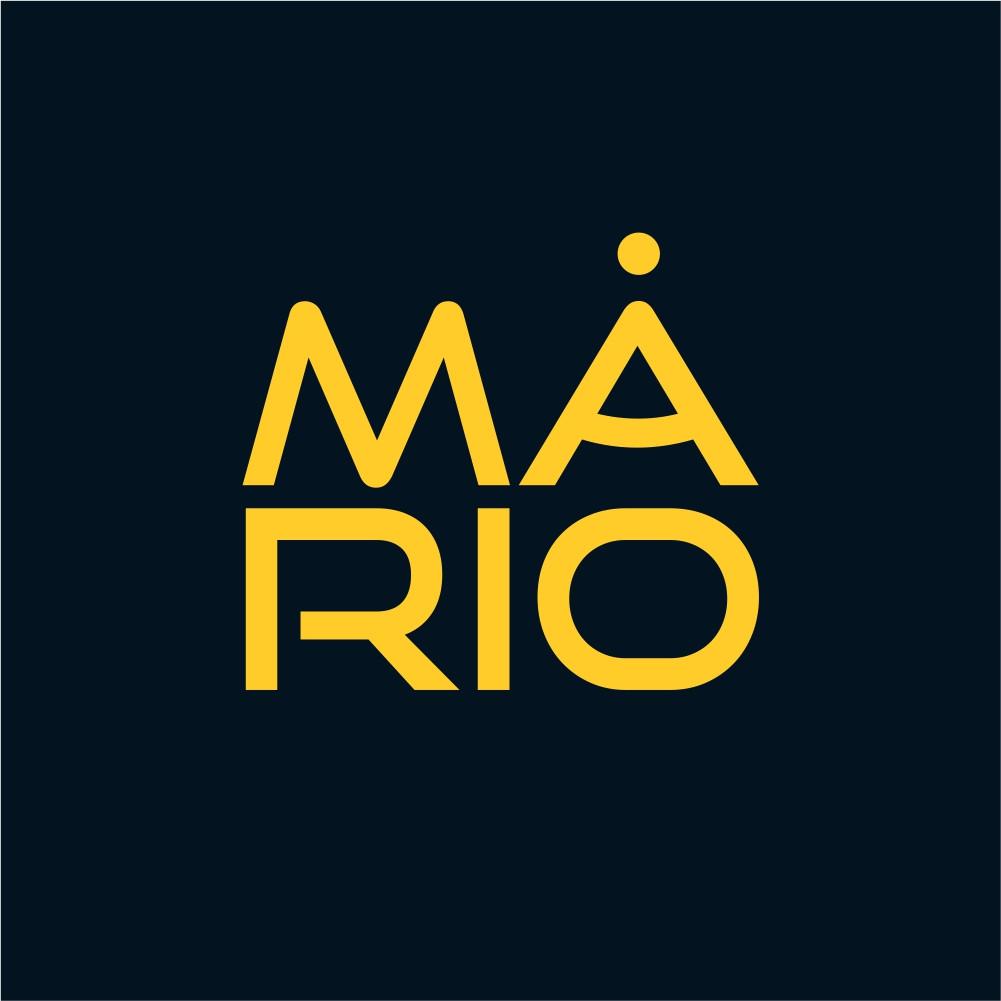
Questico Font Description
Questico is a cool, modern, and techno-looking display font. It is perfect for each of your web-related designs, space themes, sporting projects, or anything that requires strong characters. Have fun with this neat font and explore its variations.